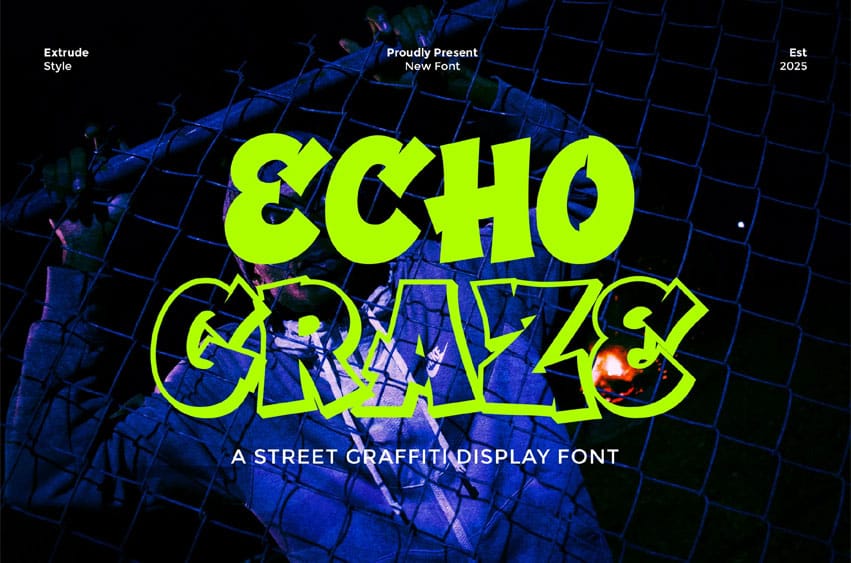
Echo Graze Font Urban energy meets bold creative flair — introducing Echo Graze, a powerful graffiti-inspired display font that blends raw street-style aesthetics with modern design versatility. Perfectly crafted for designers, content creators, and brands who want their visuals to pop with attitude and authenticity.
Echo Graze features thick, impactful letterforms with dynamic echo shadows that create a striking 3D effect — perfect for eye-catching headlines, streetwear branding, sports posters, music album covers, or urban presentation slides. Whether you’re designing a high-energy campaign or adding edgy vibes to your slides, this font delivers maximum visual punch.
- Uppercase alphabet A-Z
- Lowercase alphabet a-z
- Numbers 0-9
- Some punctuation
- Alternates & Ligatures